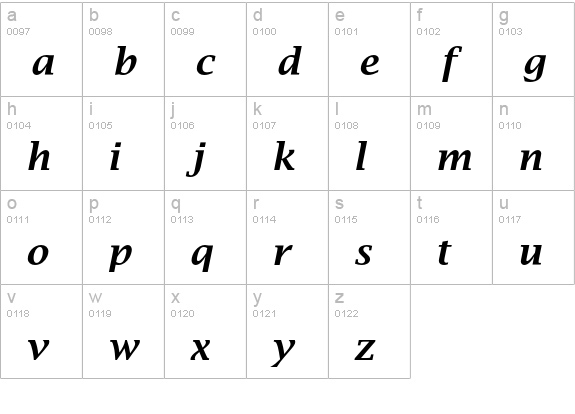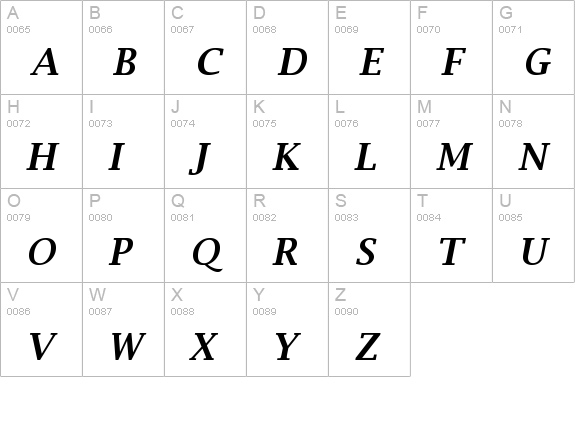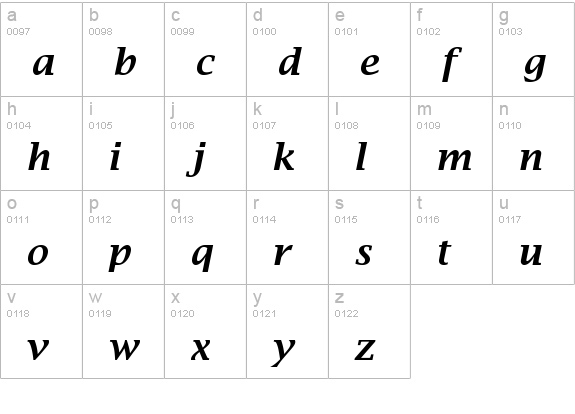
LucidaBrightEF-DemiBoldIta Font Details
LucidaBrightEF-DemiBoldIta is a bold and dynamic font that exudes elegance and sophistication. Its slanted italics add a touch of flair and style to any design project. This versatile typeface is perfect for creating eye-catching headlines, titles, and branding materials. The unique blend of boldness and elegance makes LucidaBrightEF-DemiBoldIta a popular choice for both print and digital applications. Whether used in advertising, packaging, or web design, this font commands attention and delivers a strong visual impact. Best of all, LucidaBrightEF-DemiBoldIta is available for free download at FontsMarket.com. Now you can easily access this premium font and elevate your designs without breaking the bank. Don't miss out on the opportunity to enhance your projects with the bold and stylish LucidaBrightEF-DemiBoldIta font today!